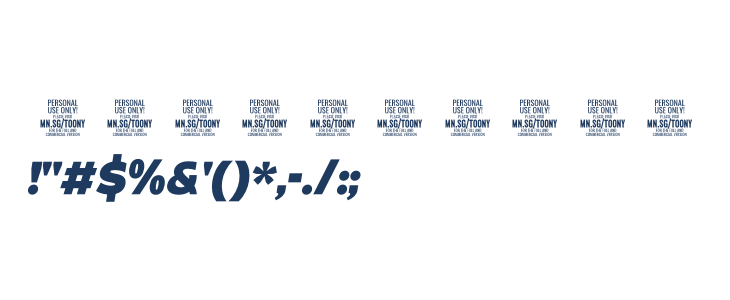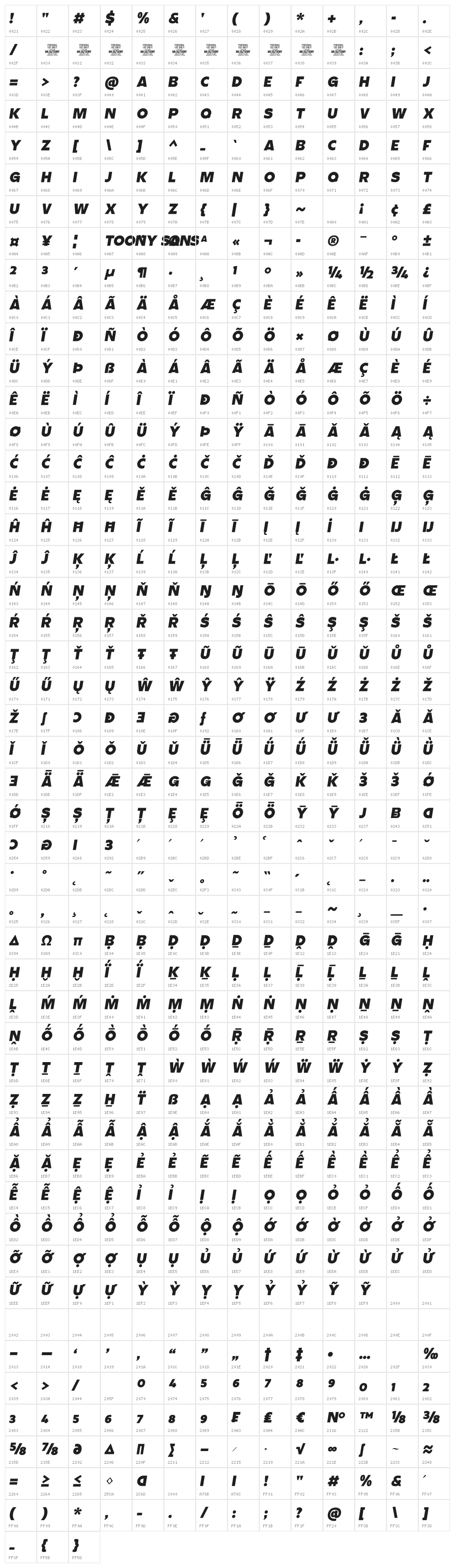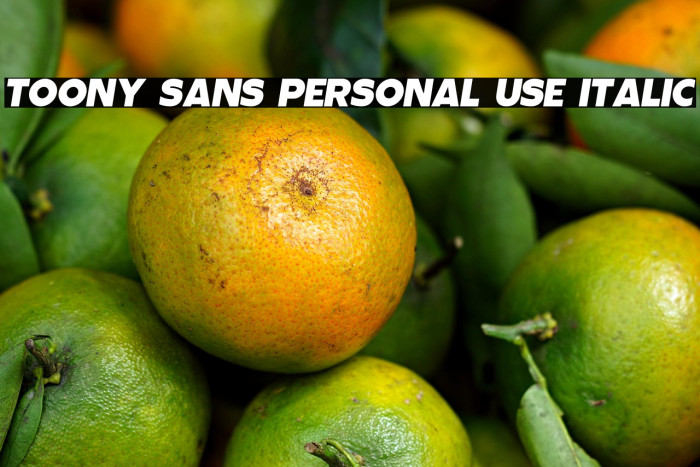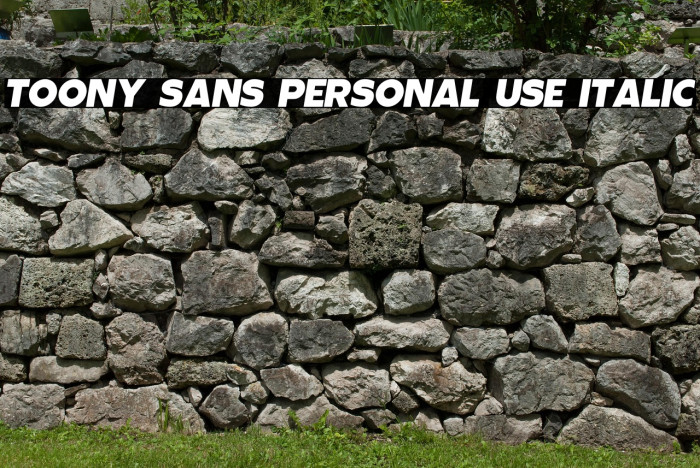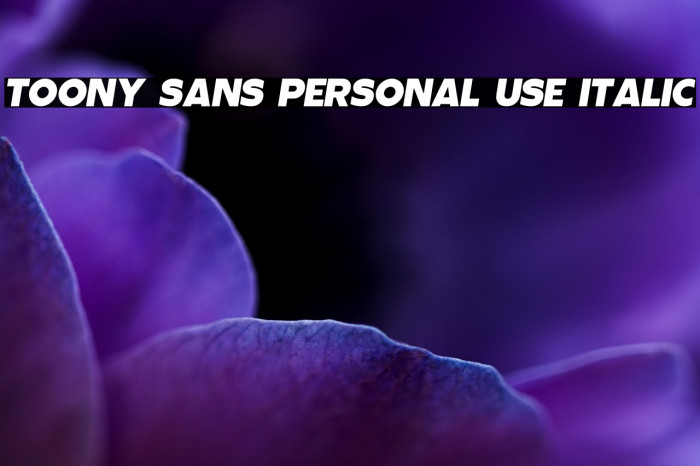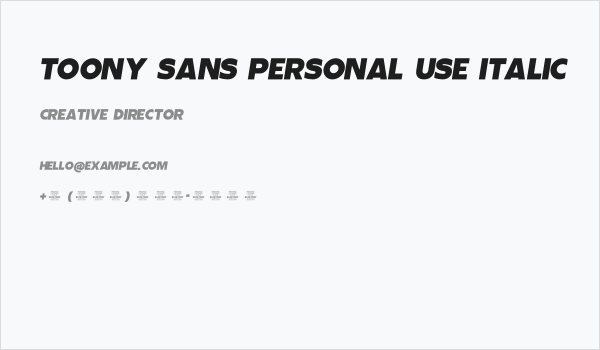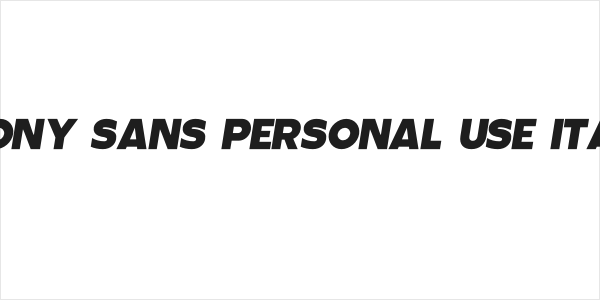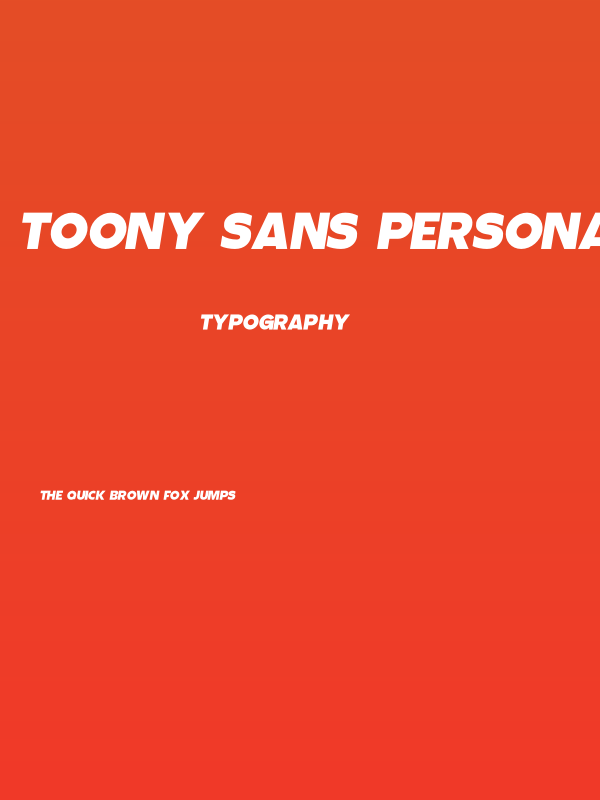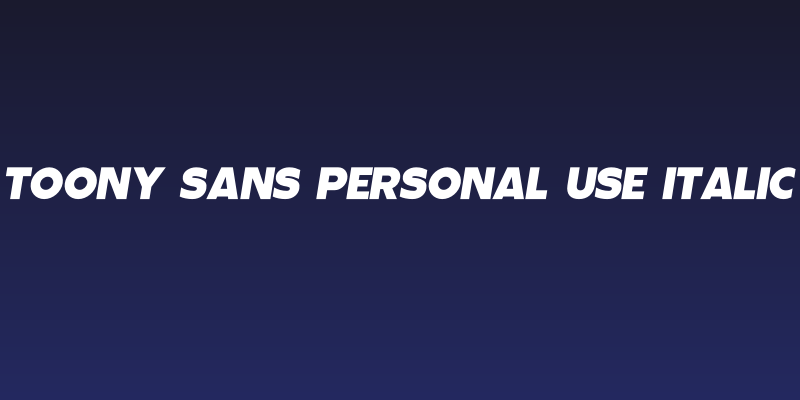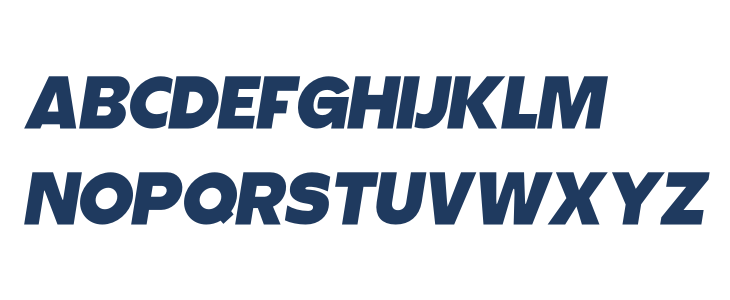
Toony Sans PERSONAL USE Italic Font
Toony Sans PERSONAL USE Italic Description
This font features a bold, italicized style with a playful and dynamic appearance. The characters are slightly slanted, giving a sense of motion and energy. The strokes are thick and consistent, contributing to a strong visual impact. The uppercase and lowercase letters maintain a uniform width, enhancing readability. The numbers and special characters are designed to match the overall aesthetic, ensuring a cohesive look across all elements. This font is ideal for projects that require a fun and engaging typeface.
| Proposed Projects | Ideal for comic books, children's books, playful branding, and eye-catching headlines. |